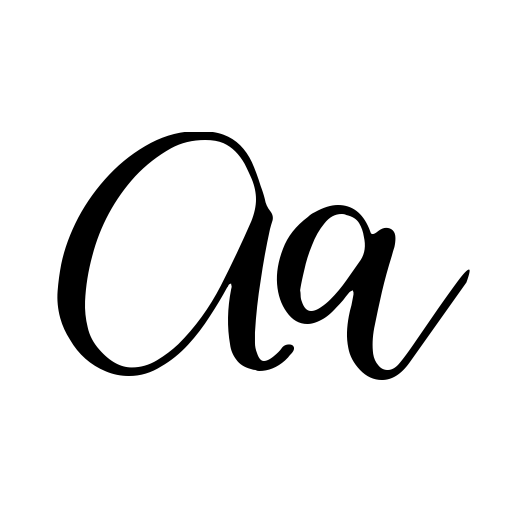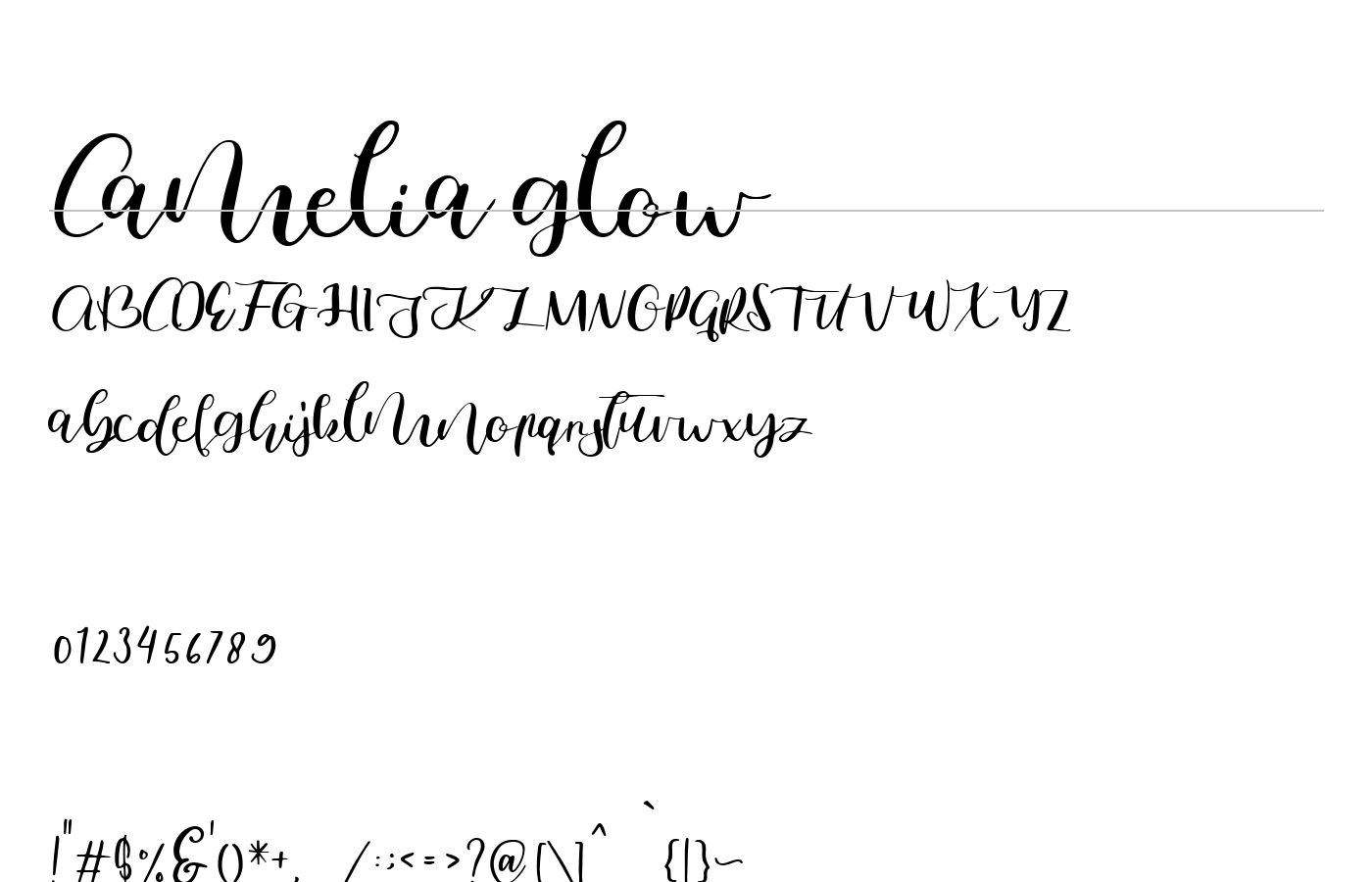
Camelia Glow is a delicate and elegant script font with a flowing, handwritten style that features graceful loops and a smooth, natural rhythm. Its slender strokes and refined curves give it a stylish, romantic feel, making it perfect for feminine branding, wedding invitations, and luxurious product packaging. This font works best for headlines and decorative text where its artistic flair can truly shine.
Camelia glow Font